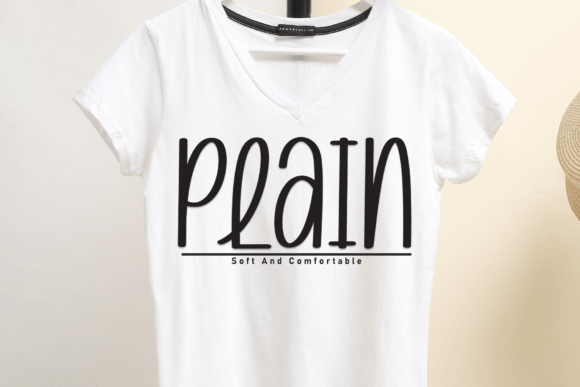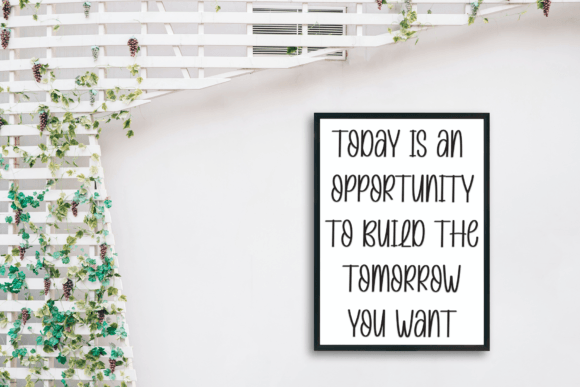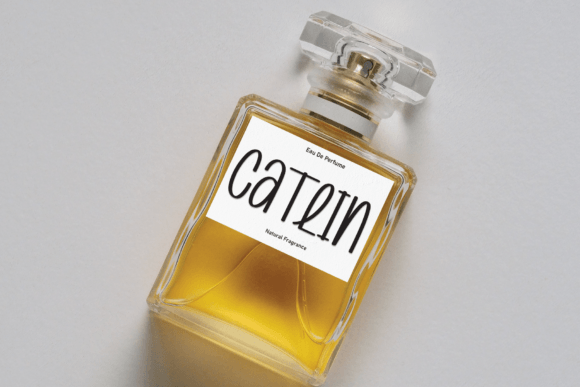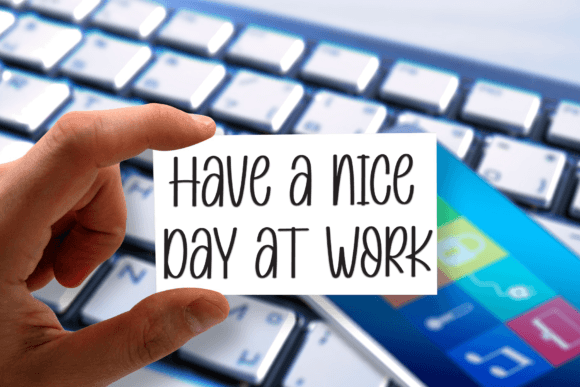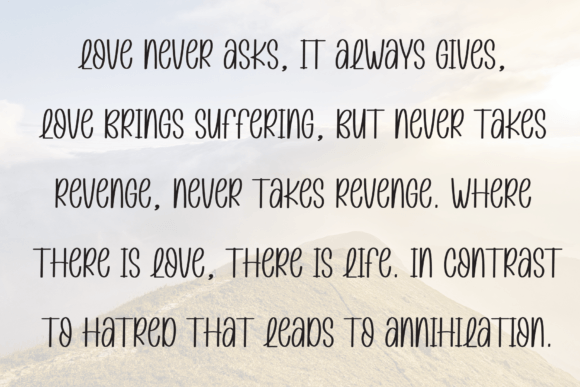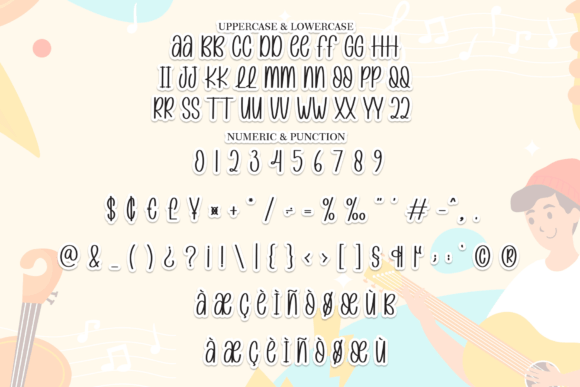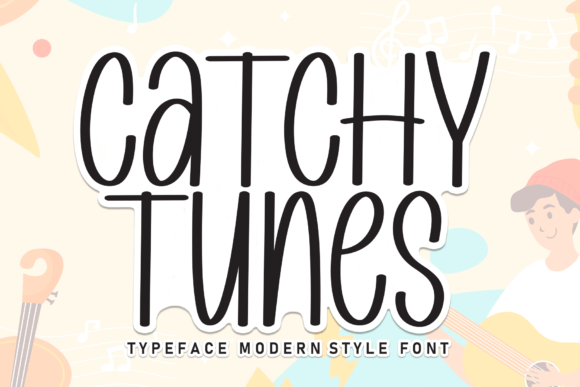
Catchy Tunes Font: Add a Sweet and Friendly Touch to Your Designs
Are you looking for a font that can add a playful and charming touch to your designs? Look no further than Catchy Tunes Font! This sweet and friendly handwritten display font is perfect for creating eye-catching wedding invitations, cards, and other designs that require a fun and whimsical feel.
What Makes Catchy Tunes Font So Special?
Catchy Tunes Font is a unique and creative typeface that is sure to capture the attention of your audience. Its cute and fun design makes it ideal for a variety of design projects, from wedding invitations and cards to posters and social media graphics. The font’s friendly and approachable feel makes it perfect for designers and crafters who want to add a personal touch to their work.
Key Features of Catchy Tunes Font
• Handwritten Display Font: Catchy Tunes Font is a handwritten display font that is designed to make a statement. Its unique and creative design makes it perfect for headlines, titles, and other design elements that require a bold and eye-catching font.
• Sweet and Friendly Design: The font’s sweet and friendly design makes it perfect for designs that require a playful and charming touch. It’s ideal for wedding invitations, cards, and other designs that require a personal and approachable feel.
• Cute and Fun: Catchy Tunes Font is a cute and fun font that is sure to bring a smile to your audience’s face. Its playful design makes it perfect for designers and crafters who want to add a touch of whimsy to their work.
• Easy to Read: Despite its playful design, Catchy Tunes Font is easy to read and understand. Its clear and legible design makes it perfect for designs that require a font that is both fun and functional.
Uses for Catchy Tunes Font
Catchy Tunes Font is a versatile typeface that can be used for a variety of design projects. Here are some of the most popular uses for this font:
• Wedding Invitations: Catchy Tunes Font is perfect for wedding invitations, as it adds a sweet and romantic touch to your design.
• Cards: The font is also great for creating cards for special occasions, such as birthdays, anniversaries, and holidays.
• Posters: Catchy Tunes Font is a great choice for posters, as it adds a bold and eye-catching touch to your design.
• Social Media Graphics: The font is also perfect for social media graphics, as it adds a fun and playful touch to your posts.
Tips for Using Catchy Tunes Font
Here are some tips for using Catchy Tunes Font in your designs:
• Use it as a Headline Font: Catchy Tunes Font is perfect for headlines and titles, as it adds a bold and eye-catching touch to your design.
• Pair it with Other Fonts: The font pairs well with other fonts, such as serif and sans-serif fonts. Experiment with different font combinations to find the perfect look for your design.
• Use it for Body Text: While Catchy Tunes Font is perfect for headlines, it can also be used for body text. However, it’s best to use it for short paragraphs or sentences, as it can be difficult to read in large blocks of text.
Catchy Tunes Font is a sweet and friendly handwritten display font that is perfect for designers and crafters who want to add a playful and charming touch to their work. Its cute and fun design makes it ideal for wedding invitations, cards, posters, and social media graphics. With its easy-to-read design and versatile uses, Catchy Tunes Font is a great addition to any designer’s font collection.